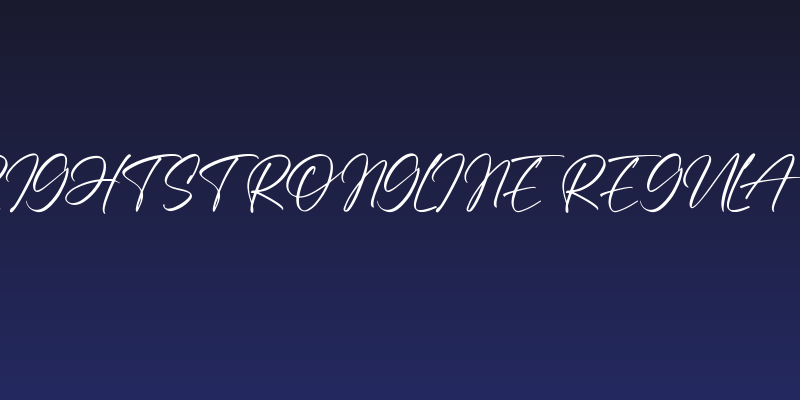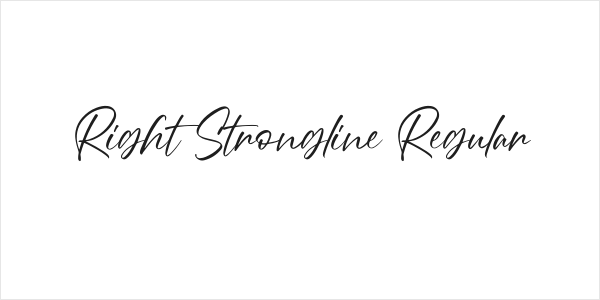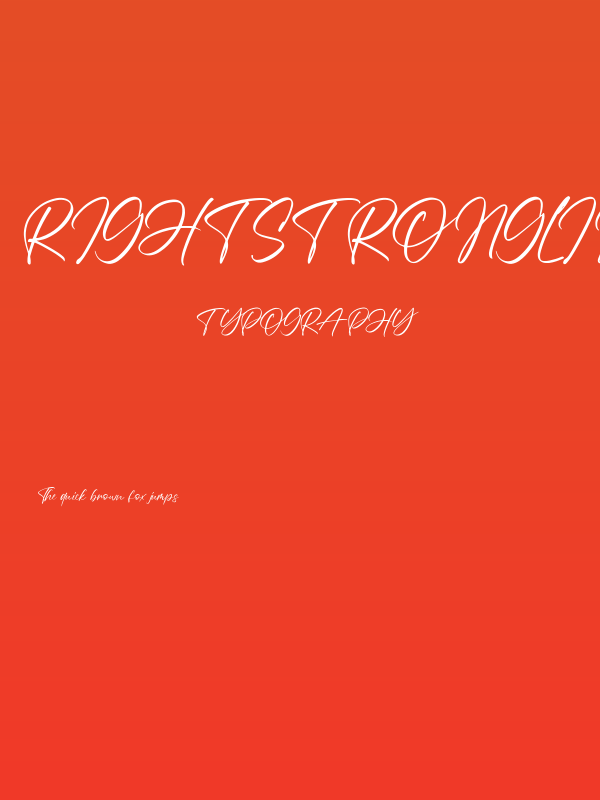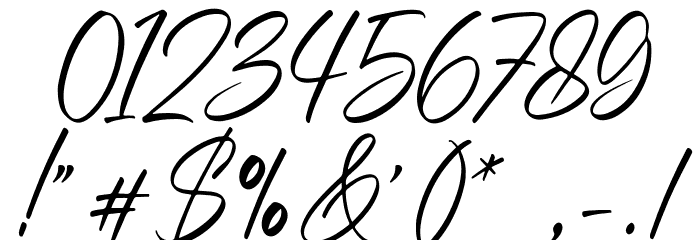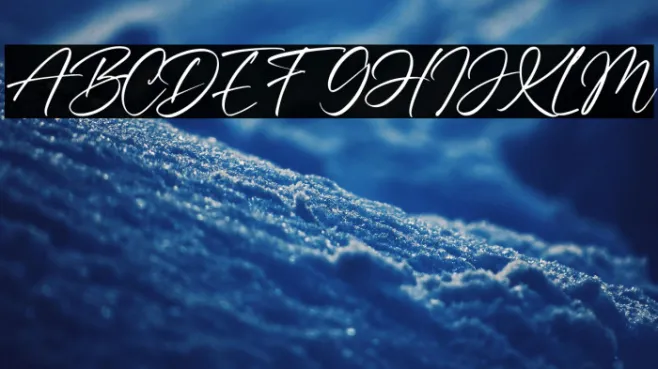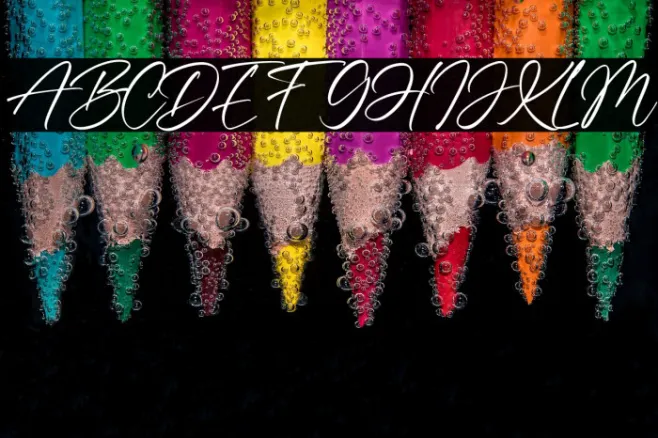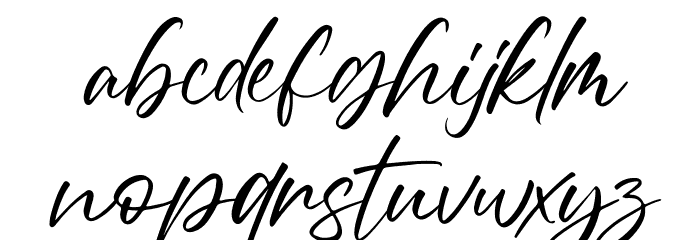
Right Strongline Regular Font
Right Strongline Regular Description
This font features a dynamic and flowing script style, characterized by its elegant and cursive letterforms. The uppercase letters exhibit a graceful and sweeping motion, while the lowercase letters maintain a consistent fluidity, creating a harmonious and cohesive appearance. The numerals are designed with the same flowing style, ensuring uniformity across all characters. Special characters are integrated seamlessly, maintaining the font's overall aesthetic. The strokes are moderately thick, providing a balanced contrast that enhances readability without sacrificing the decorative quality. This font exudes a sense of sophistication and artistic flair, making it suitable for a variety of creative applications.
| Proposed Projects | Ideal for wedding invitations, branding, logo design, and elegant stationery. |